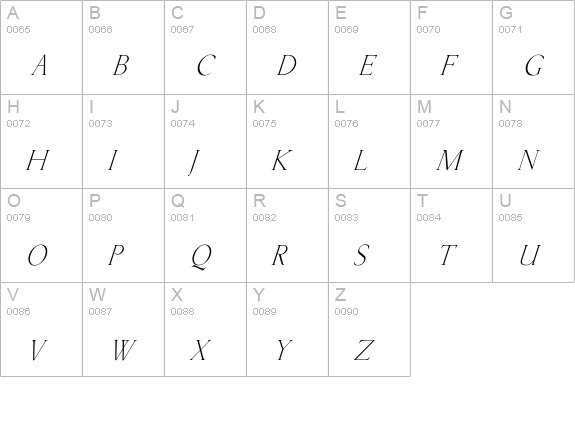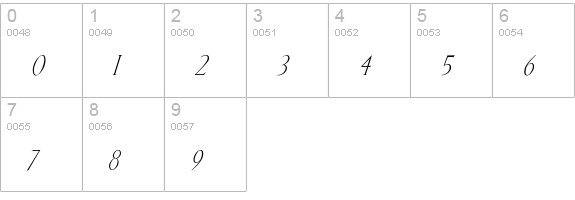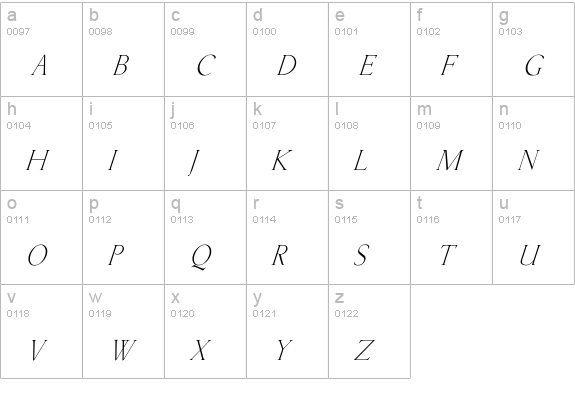
Kellnear-Italic Font Details
Kellnear-Italic is a distinctive, italic variant in the Kellnear typeface family \xE2\x80\x94 well suited to design and typography projects.
Introducing Kellnear-Italic font, a stunningly elegant and meticulously crafted typeface that embodies sophistication and style. With its sleek, slanted design, Kellnear-Italic exudes a sense of modernity and professionalism that is perfect for a wide range of creative projects. This font captivates with its graceful curves and delicate letterforms, creating a harmonious balance between legibility and artistic expression. Its italicized nature adds a touch of flair and personality, making it ideal for adding emphasis and creating eye-catching headlines. Whether used for digital or print media, Kellnear-Italic effortlessly elevates any design, giving it an air of refinement and class. But what truly sets Kellnear-Italic apart is its accessibility. This font is not only visually appealing, but it is also free to download at FontsMarket.com. Yes, you read that right! Kellnear-Italic is freely available, allowing designers, artists, and creatives of all backgrounds to unleash their creativity without any financial constraints. So, why wait? Enhance your projects with the timeless elegance of Kellnear-Italic font. Download it for free at FontsMarket.com and experience the sheer beauty and versatility it brings to your designs. Embrace the freedom to create and make a lasting impression with Kellnear-Italic font today.